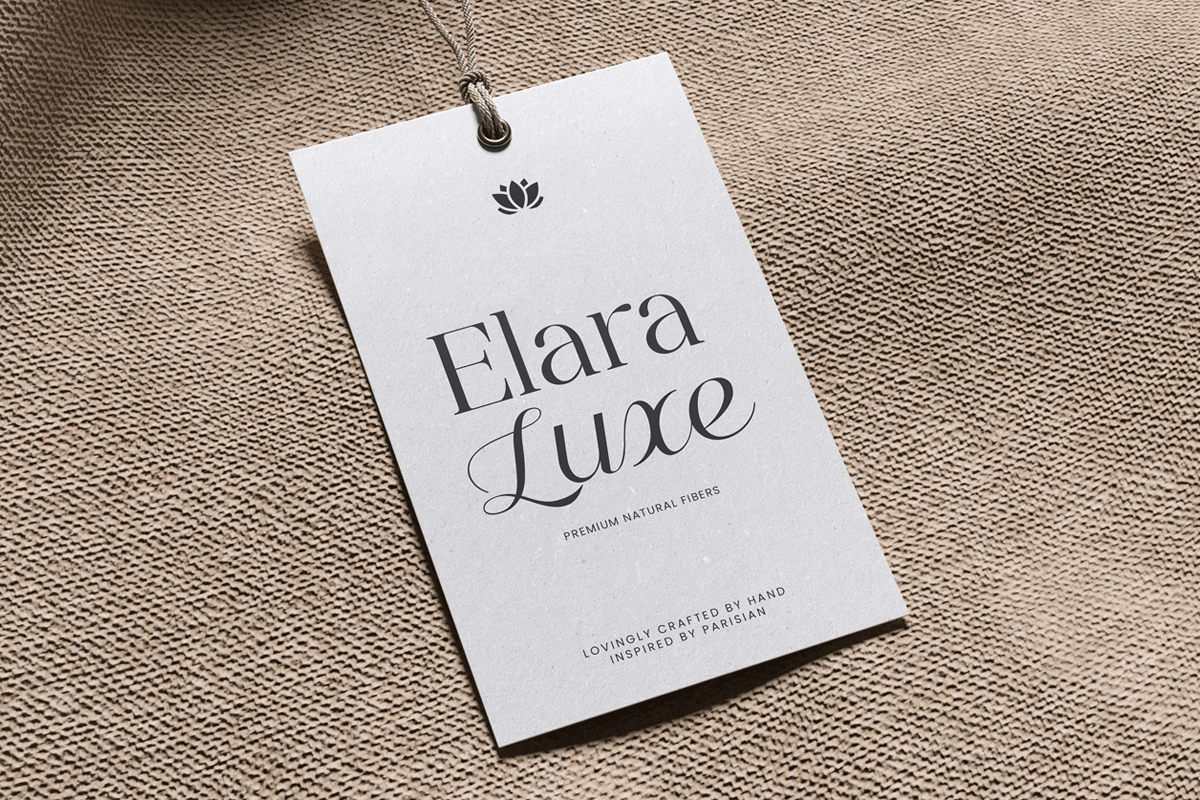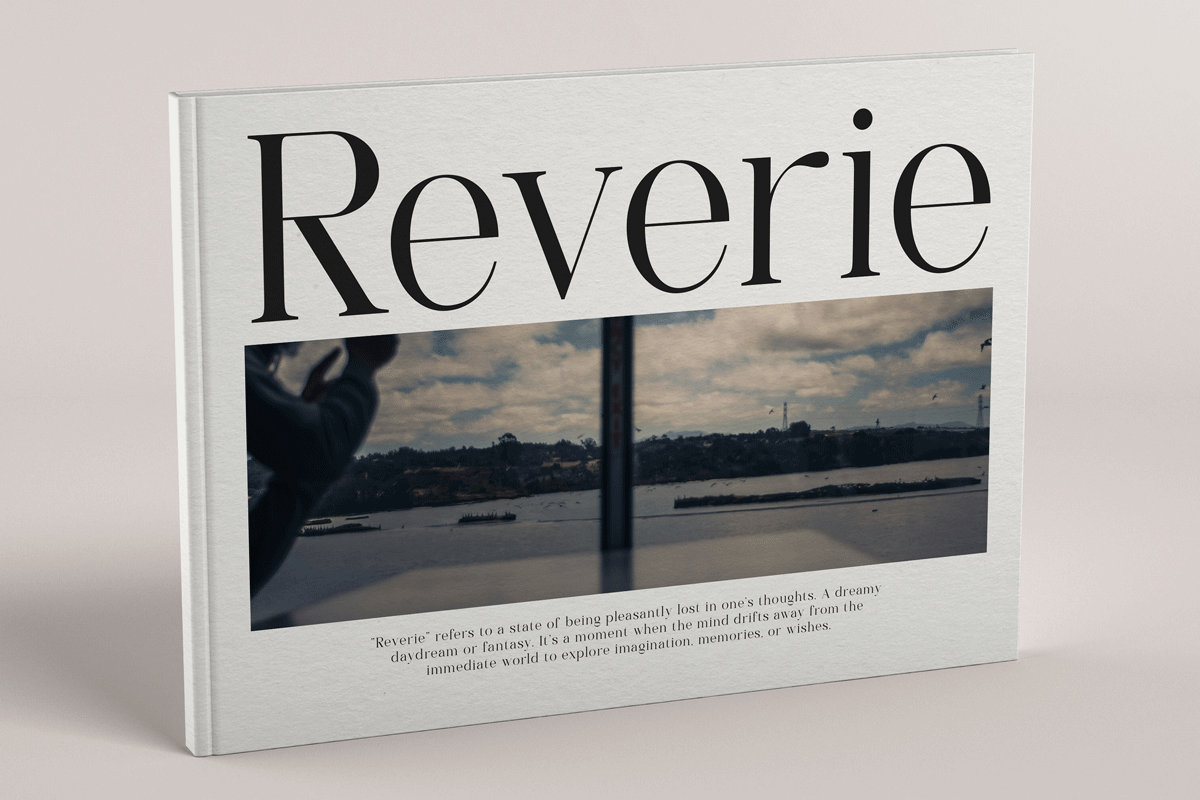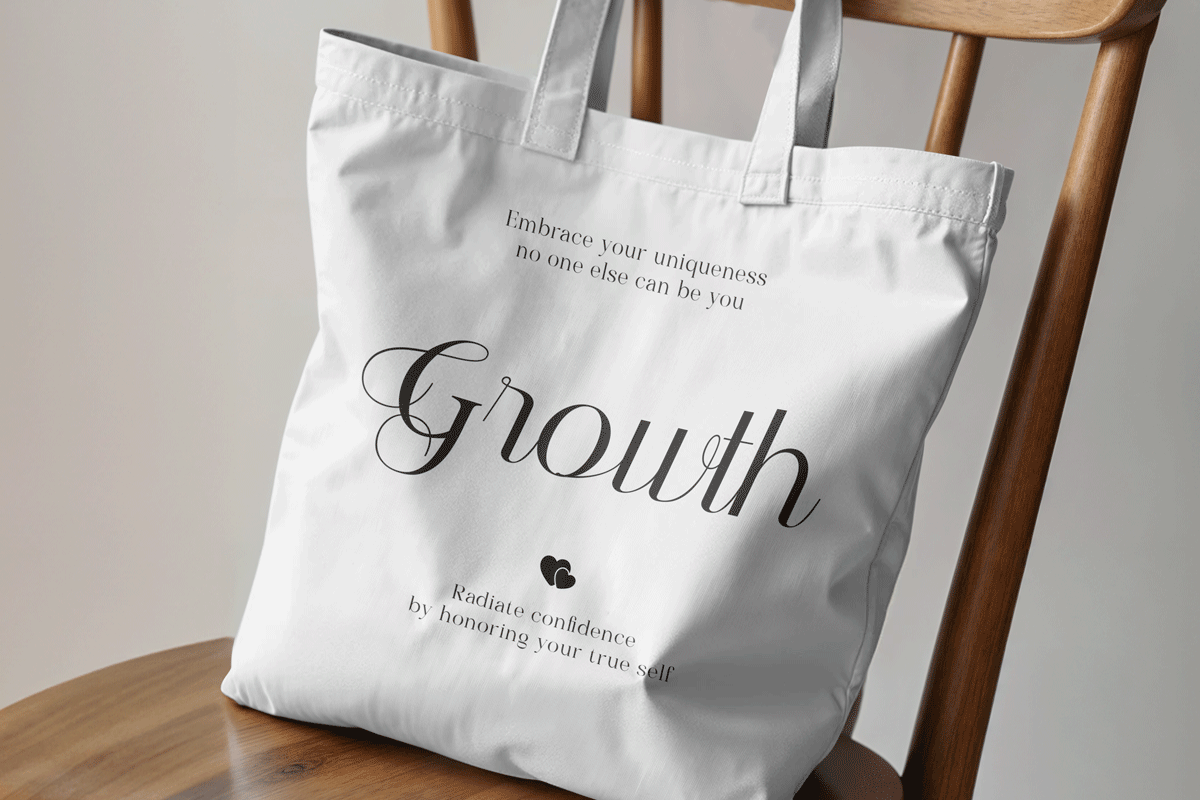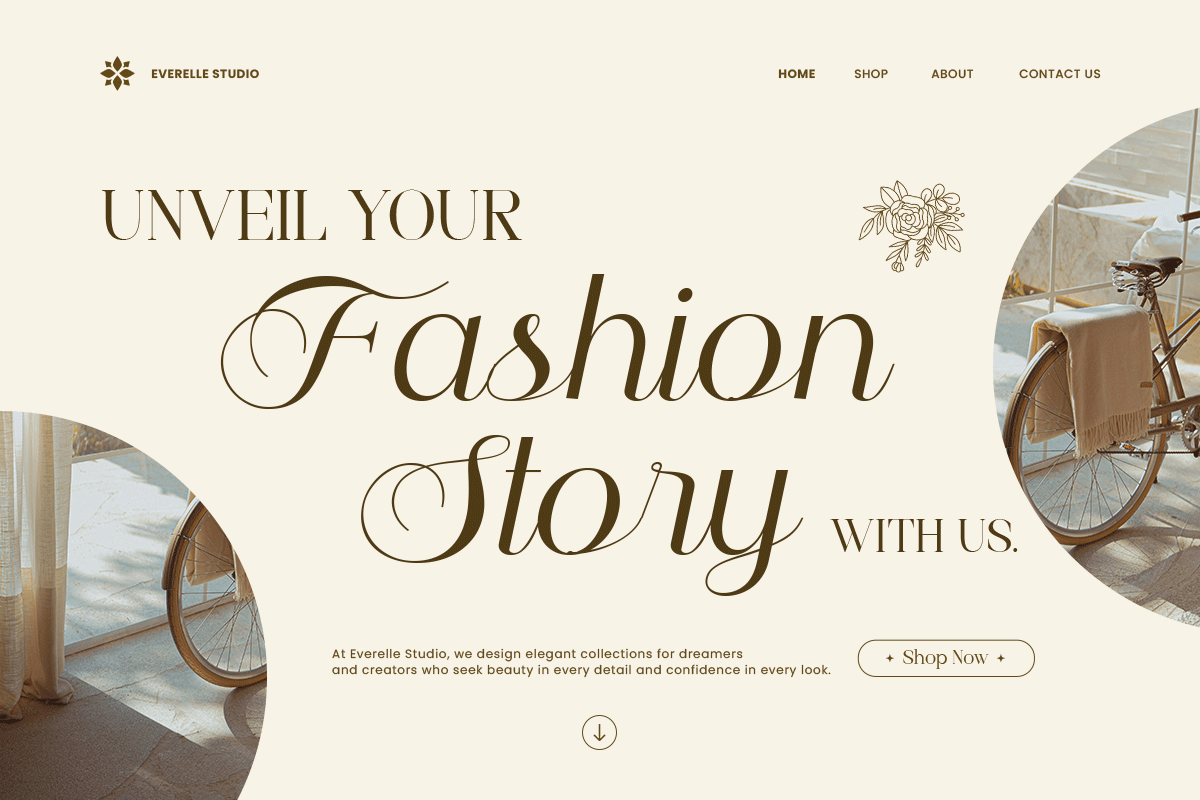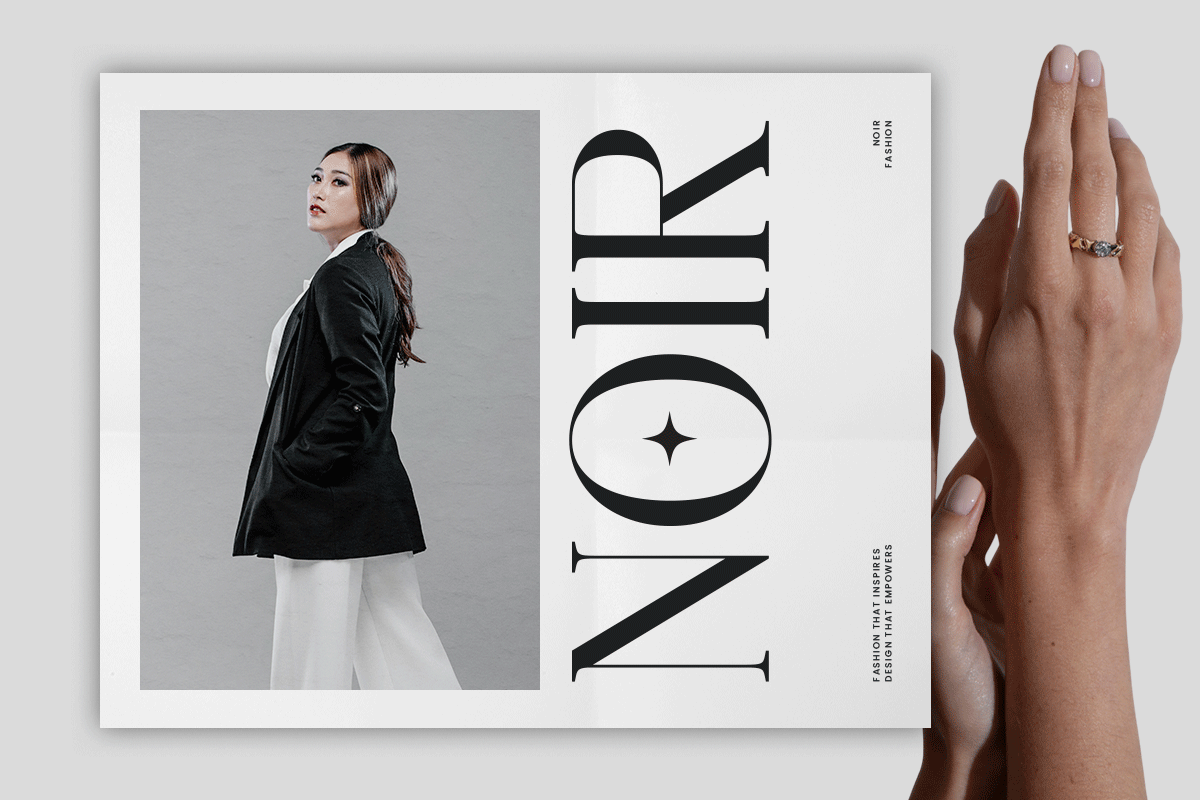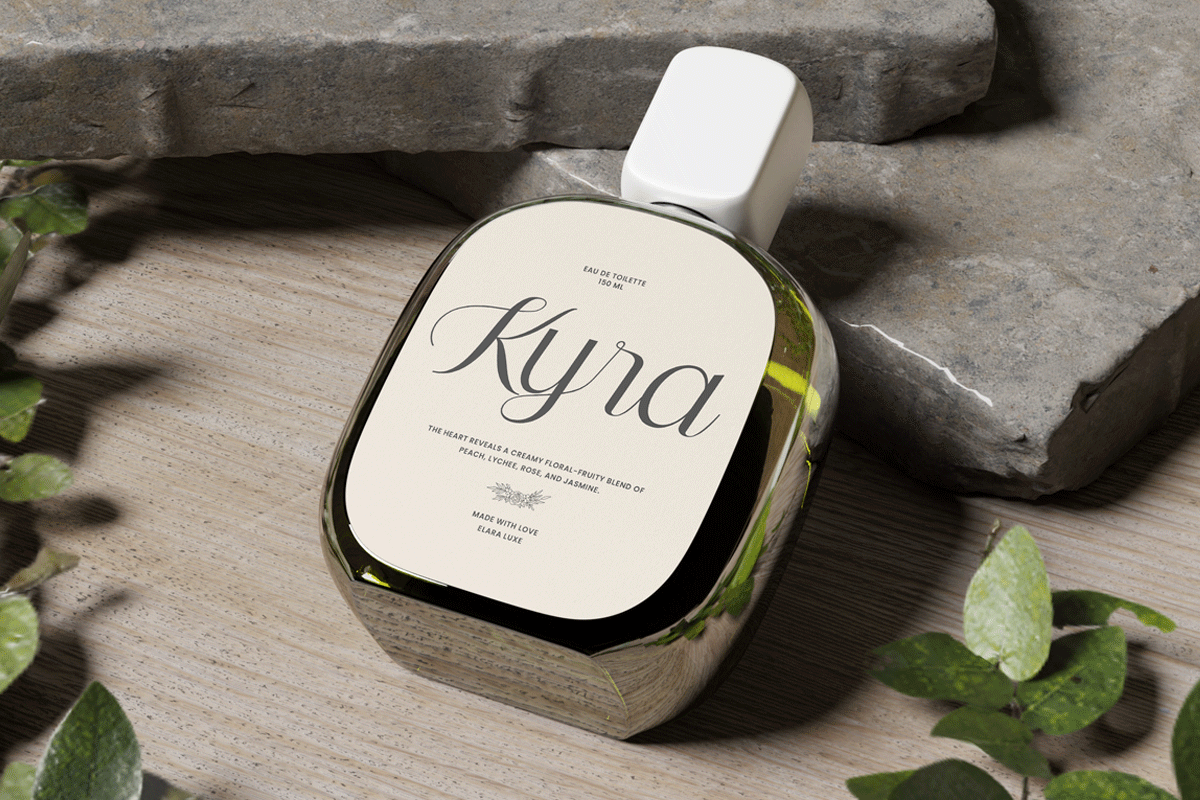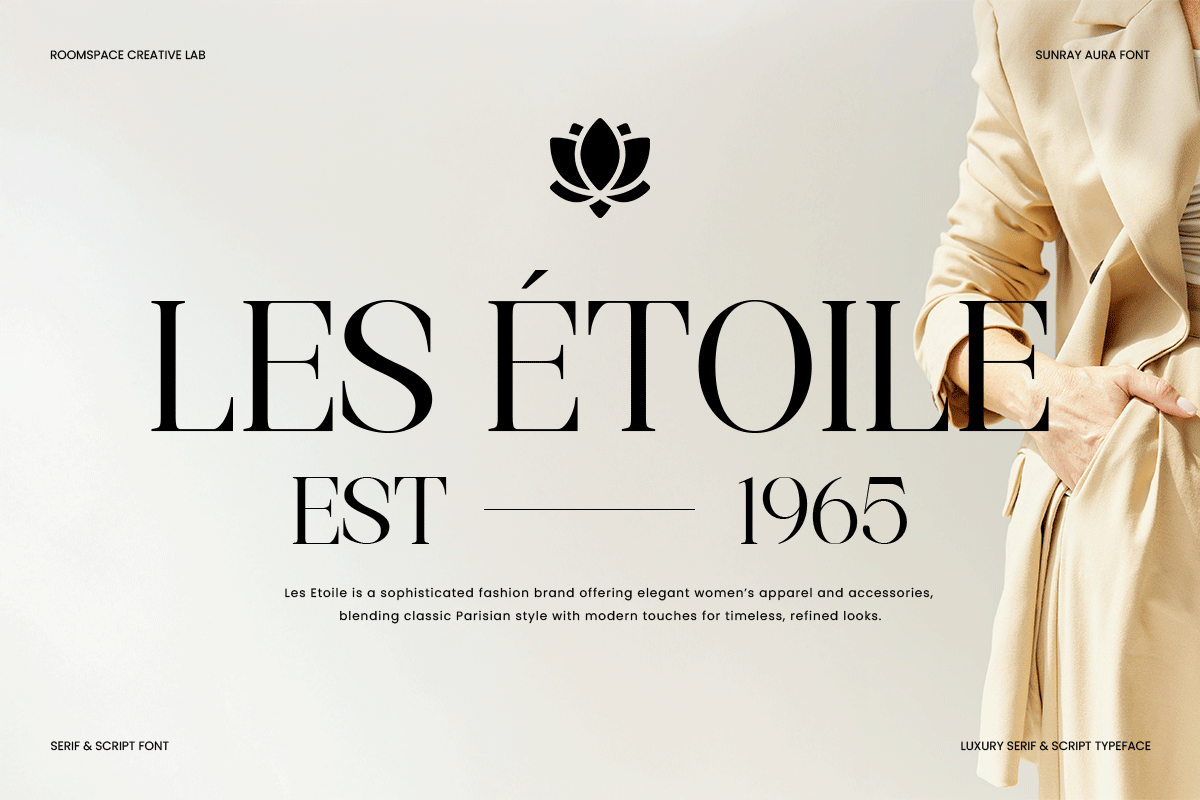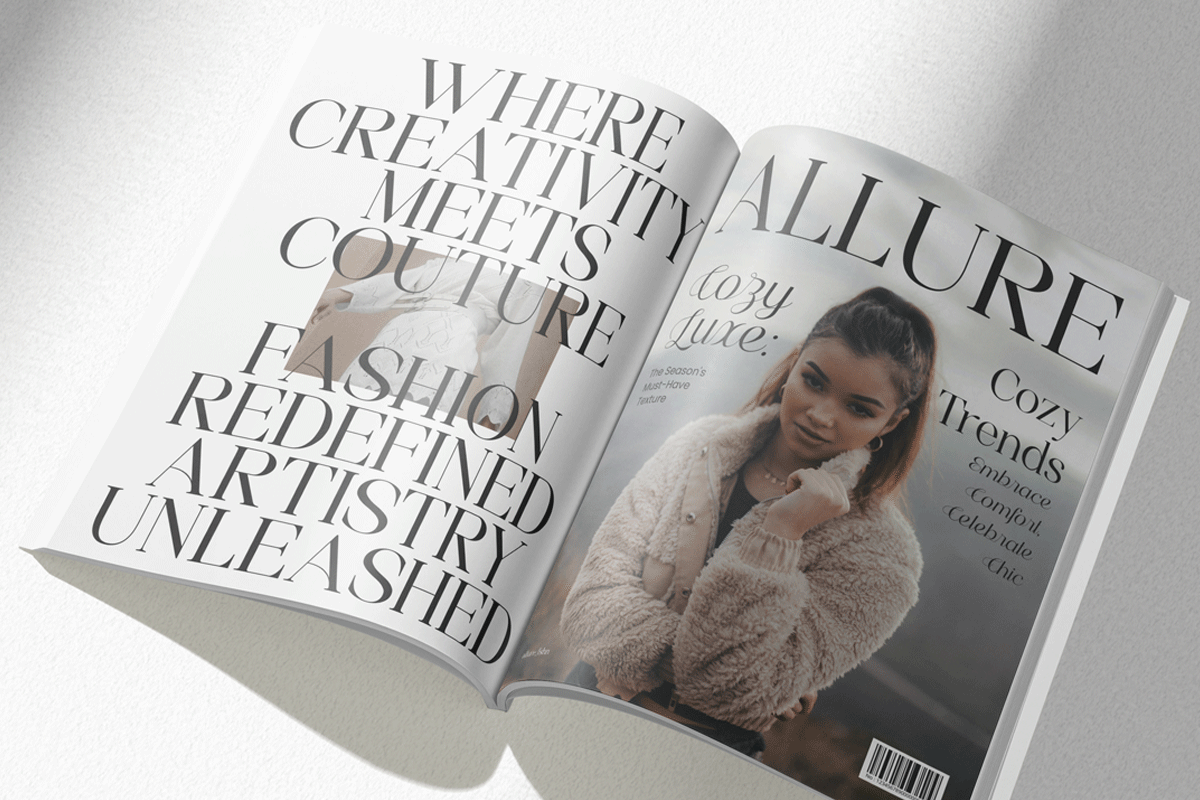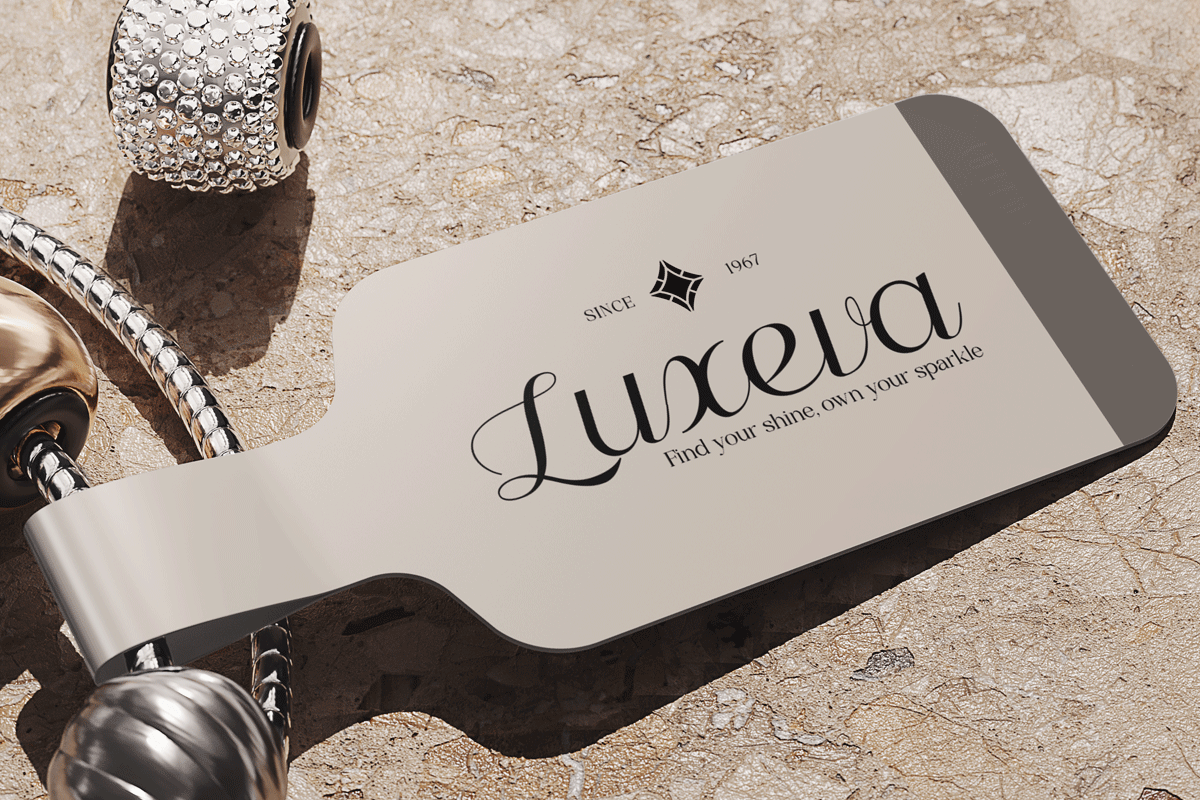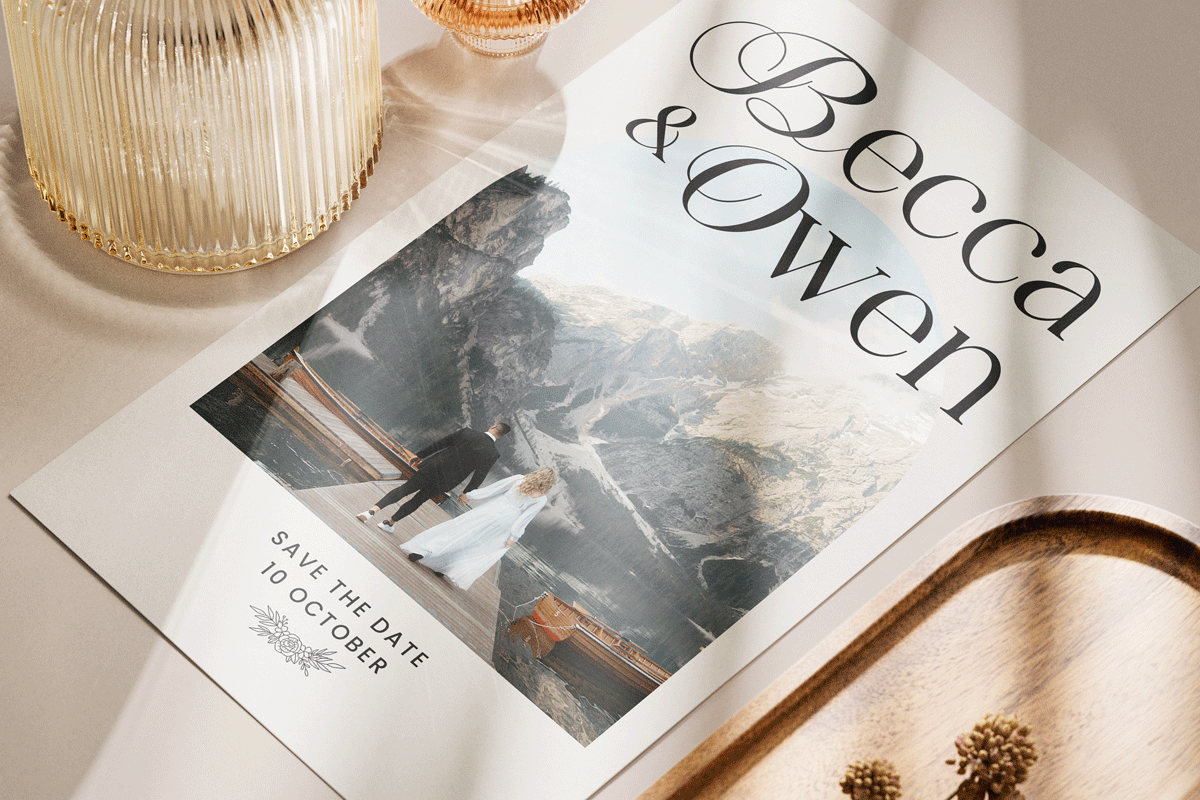
Sunray Aura – Modern Serif & Script
Sunray Aura is a enchanting fusion of serif and script elegance. This typeface captures the perfect harmony between timeless sophistication and radiant charm. The serif style brings a classic, graceful foundation, while the script flows effortlessly with gentle swashes and feminine curves. Sunray Aura is designed to evoke beauty, warmth, and refinement perfect for anyone seeking a font that feels both luxurious and heartfelt.
Together, they create a stunning pairing for typography lovers. With excellent kerning, refined contrast, and well-balanced proportions, this duo works beautifully in both print and digital design projects. Let Sunray Aura add a touch of timeless beauty and sophistication to your next design project. Try it today and make your brand shine with grace and confidence.